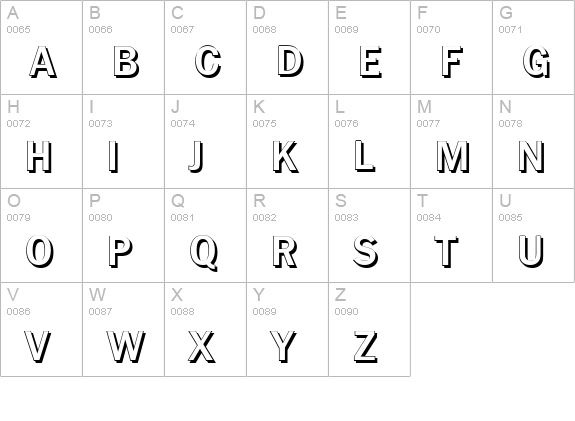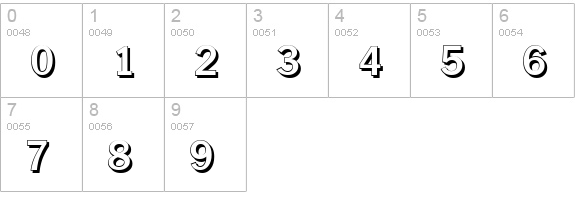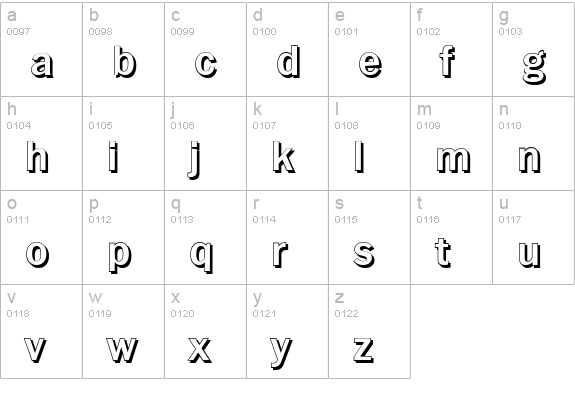
PlymouthShadow-Bold Font Details
PlymouthShadow-Bold is a strong, high-contrast variant in the PlymouthShadow typeface family \xE2\x80\x94 well suited to headlines, attention-grabbing titles, and strong calls-to-action.
PlymouthShadow-Bold font is a bold and eye-catching typeface that exudes a sense of strength and modernity. Its sharp edges and unique shadow effect make it stand out on any design project, adding a touch of sophistication and style. This versatile font is perfect for headlines, titles, logos, and more, making it a must-have for designers looking to make a statement. Best of all, PlymouthShadow-Bold font is available for free download at FontsMarket.com. Whether you're working on a personal project or a professional design, this font is a great choice for adding a bold and impactful element to your work. Download PlymouthShadow-Bold today and take your designs to the next level!